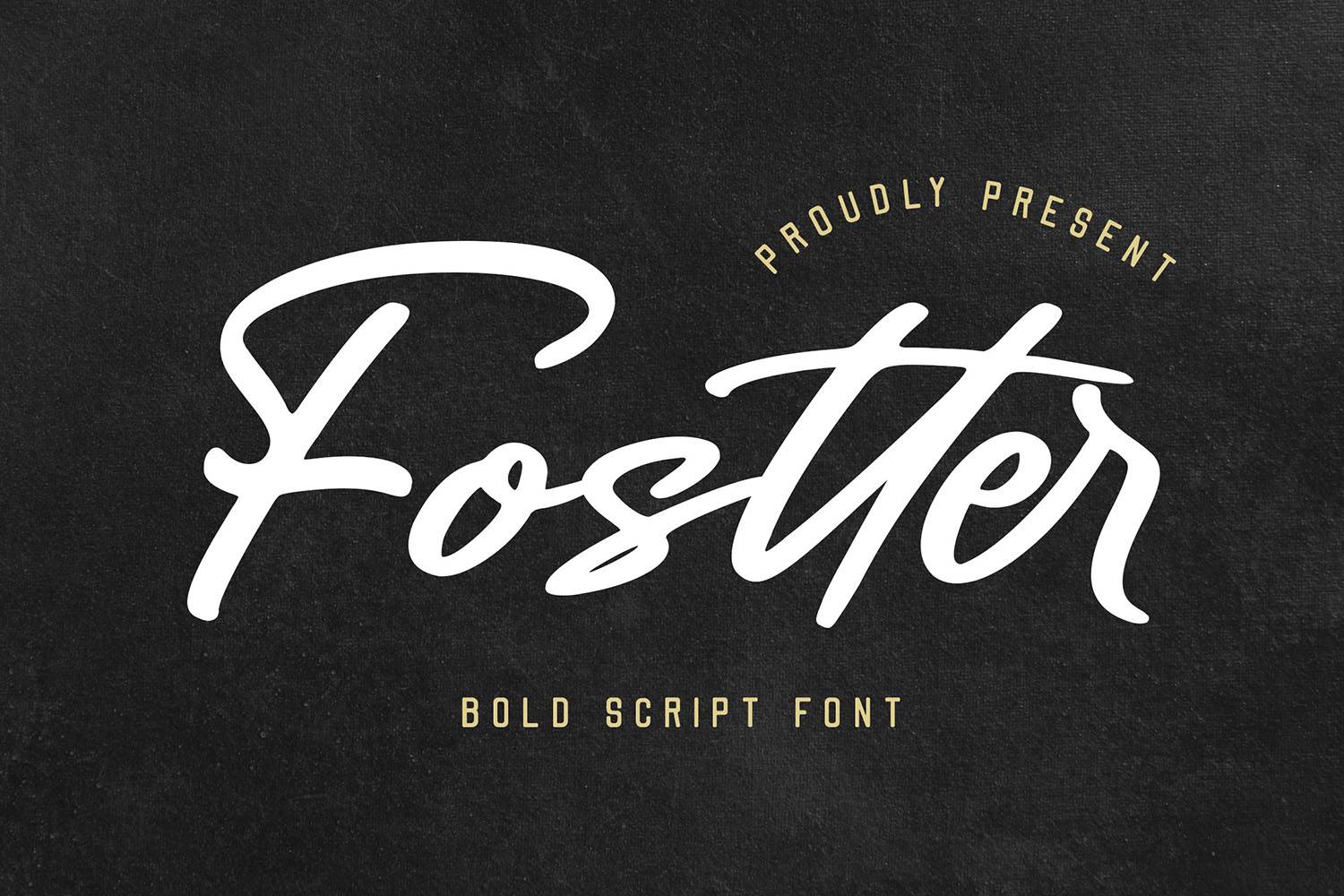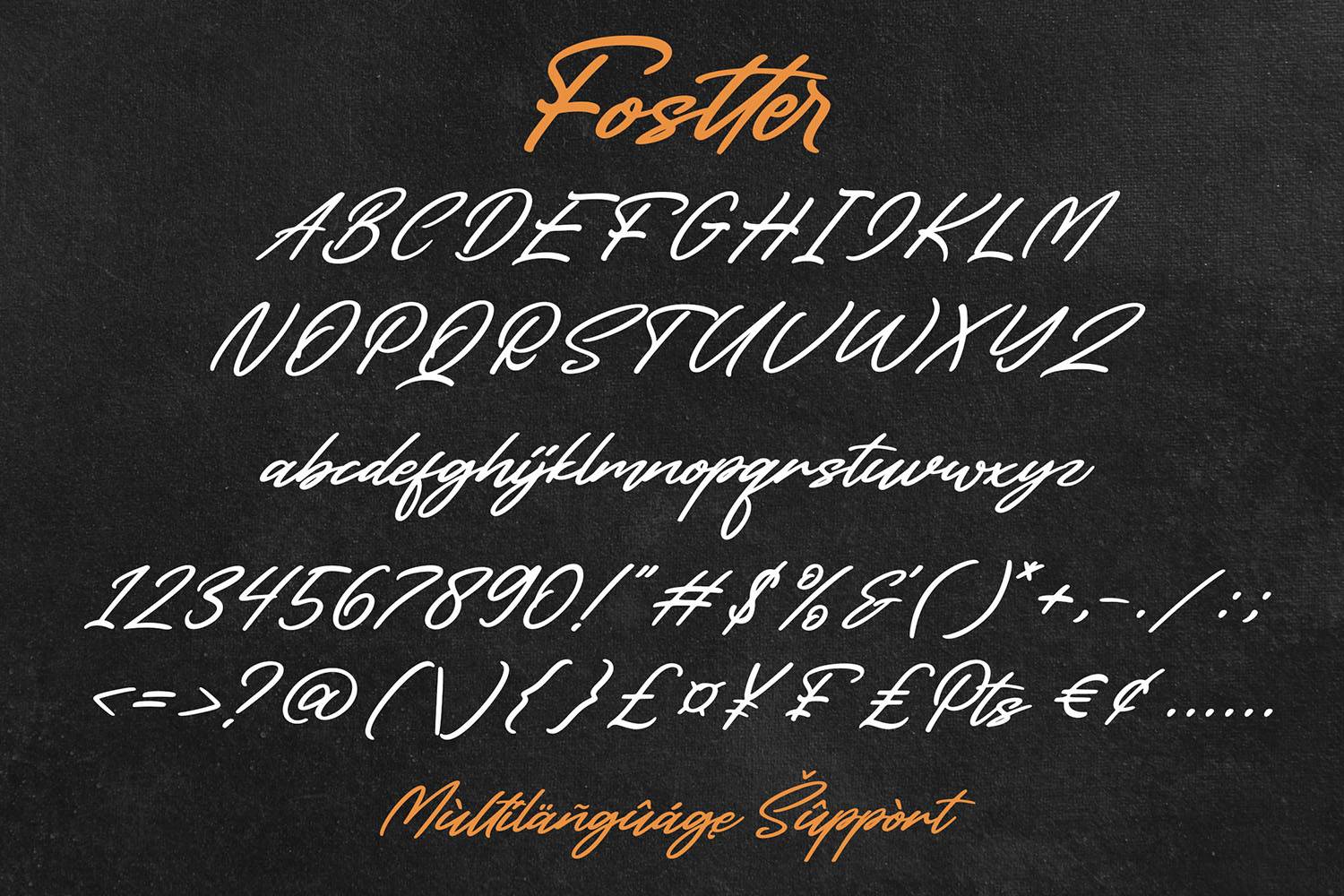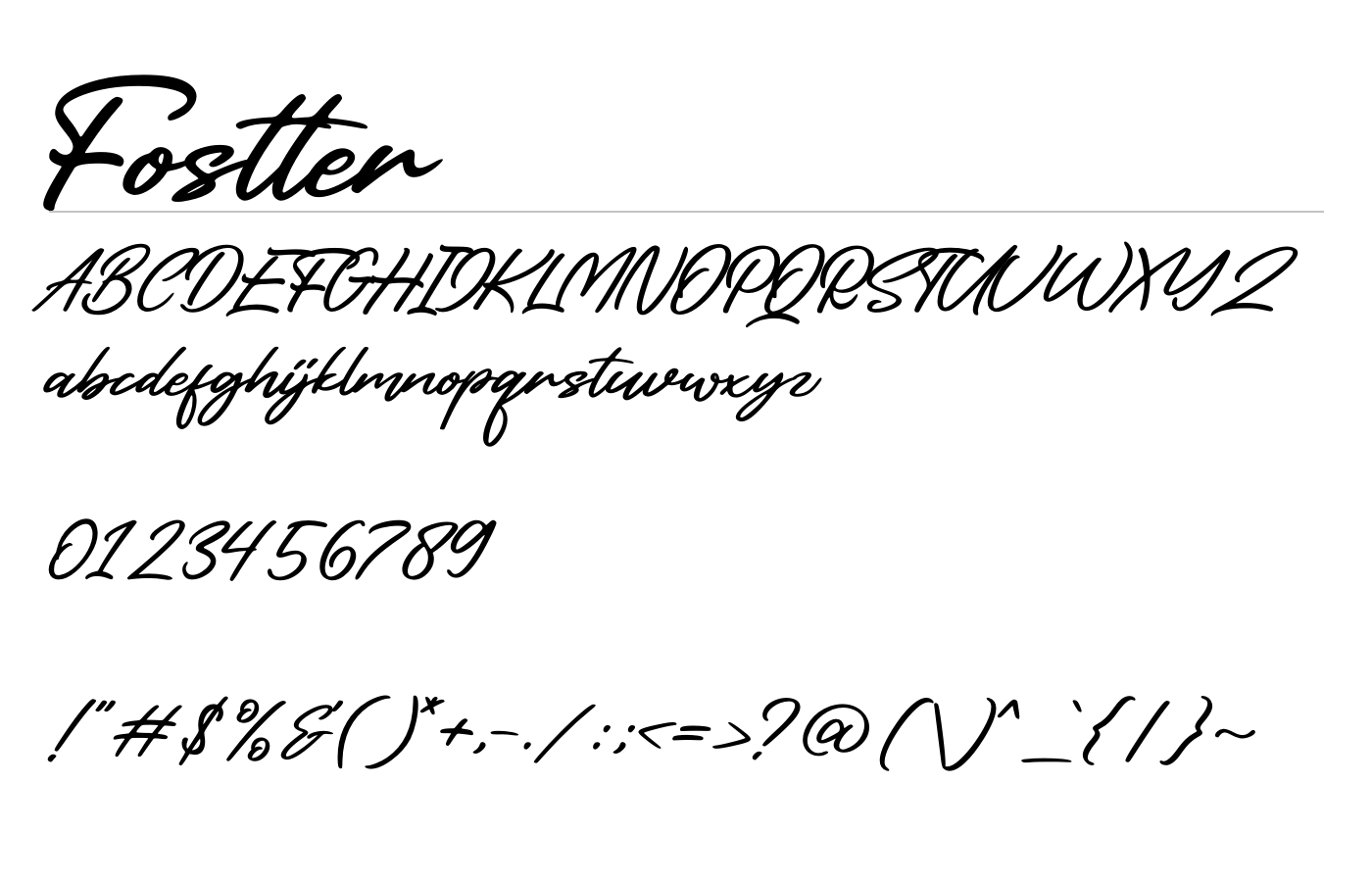
Fostter is a smooth, elegant script font with a natural, handwritten feel, characterized by its flowing, connected letterforms and medium weight strokes. Its clean, legible design makes it perfect for adding a personal and stylish touch to branding, invitations, and headlines, giving a modern yet approachable vibe. This font works well where warmth and sophistication are desired, such as in fashion, lifestyle, and creative projects.
Fostter Font
About Fostter Font